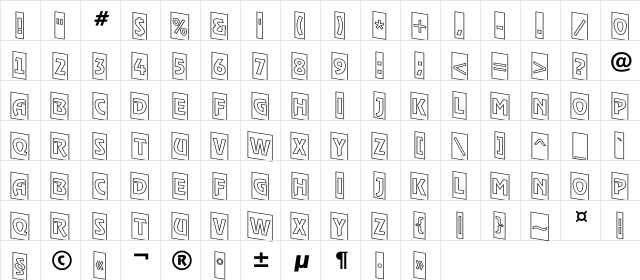
a_RewinderTitulCmOtlDn Regular
Design Context for a_RewinderTitulCmOtlDn Typeface
a_RewinderTitulCmOtlDn offers clean, dependable letterforms without strong stylistic allegiance, making it a practical choice for designers who need flexibility.